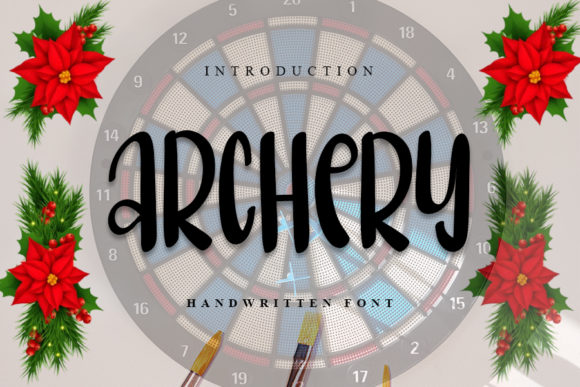
Unlock the secrets of elegance and make a lasting impression with Archery Font, a calligraphy masterpiece designed to captivate the hearts of design enthusiasts. Step into a world where every letter flows with charm and sophistication, leaving an imprint that lingers in the minds of your audience. Immerse yourself in the beauty of Archery's sweeping strokes, graceful curves, and playful ligatures that effortlessly elevate your designs.
Archery Font is a visual symphony of creativity, perfect for adding a touch of personality to your posters, flyers, social media graphics, and logos. Its organic and free-flowing style adds a touch of whimsy and individuality to your projects. Picture the allure of your designs as Archery's characters dance across the page, enchanting and engaging your audience with their captivating presence.
With Archery Font, you'll have the power to transform ordinary words into extraordinary expressions. Its charming appeal and artistic flair are ideal for crafting magical invitations, dreamy wedding stationery, captivating branding materials, and enchanting social media posts. Each letter is a work of art, carefully crafted to evoke emotions and create a lasting connection with your audience.
Archery Font isn't just a font; it's an experience. Its enchanting aura casts a spell on your projects, leaving an indelible mark of sophistication and timeless beauty. Whether you're a seasoned designer or just starting, Archery Font is the key to unlocking your creative potential and leaving a lasting impression on the world. Embrace the allure of Archery Font and watch your designs come alive with elegance and grace.